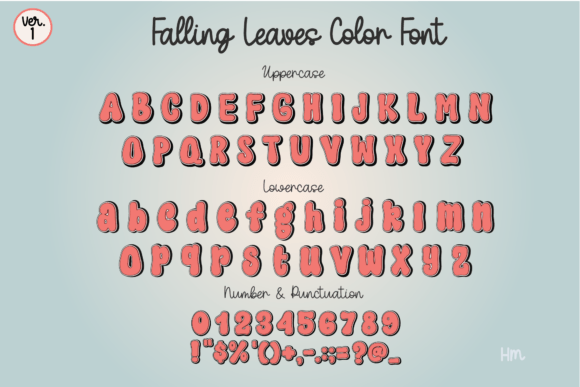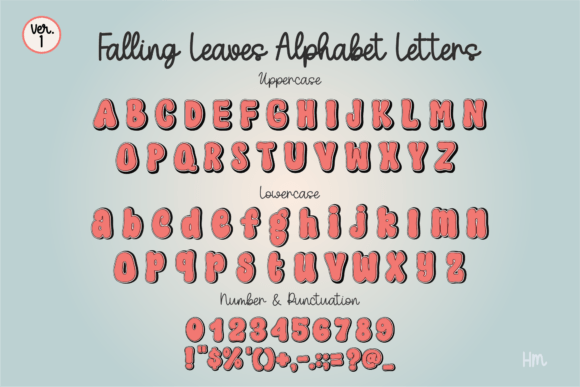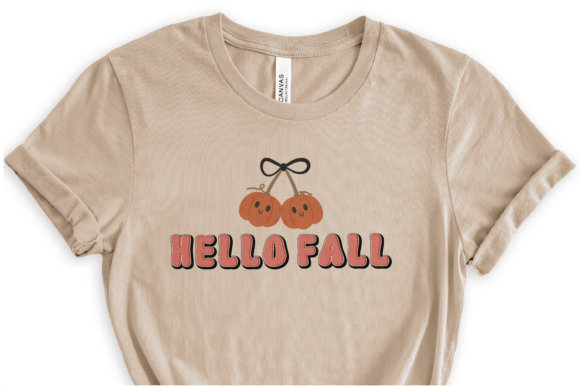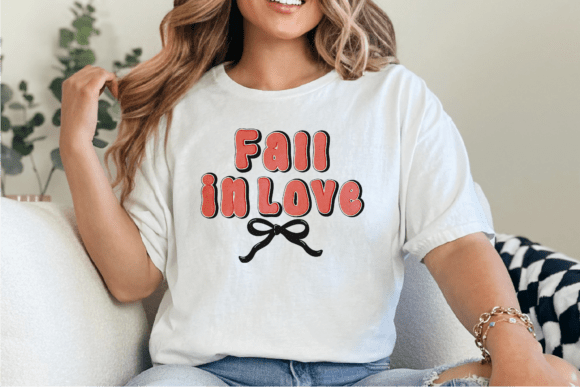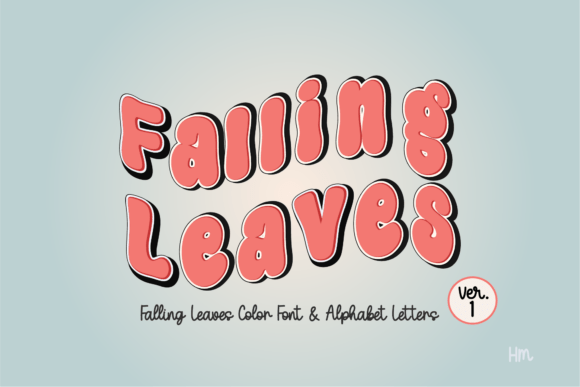
Falling Leaves Orange Font: Elevate Your Designs with a Playful and Expressive Typeface
Are you tired of using the same old fonts in your designs? Look no further than the Falling Leaves Orange Font, a vibrant and playful typeface that’s sure to capture attention. With its bold, rounded letterforms and hand-crafted feel, this font is perfect for designers who want to add a unique charm to their projects.
What Makes Falling Leaves Orange Font So Special?
The Falling Leaves Orange Font is a true standout in the world of typography. Its smooth strokes and organic curves create a lively rhythm that’s sure to engage your audience. The subtle contrasts in weight give each character depth and personality, making every letter a joy to behold. Whether you’re creating posters, social media graphics, titles, invitations, stickers, apparel, or branding, this font is sure to bring a touch of warmth and cheer to your designs.
Key Features of Falling Leaves Orange Font
- Bold and Rounded Letterforms: The Falling Leaves Orange Font features bold, rounded letterforms that are sure to capture attention.
- Hand-Crafted Feel: The font’s hand-crafted feel gives it a unique and personal touch that’s sure to set your designs apart.
- Smooth Strokes and Organic Curves: The font’s smooth strokes and organic curves create a lively rhythm that’s sure to engage your audience.
- Subtle Contrasts in Weight: The subtle contrasts in weight give each character depth and personality, making every letter a joy to behold.
The Falling Leaves Orange Font is incredibly versatile, making it perfect for a wide range of design projects. Here are just a few ideas to get you started:
- Posters: Add a pop of color and personality to your posters with the Falling Leaves Orange Font.
- Social Media Graphics: Make your social media graphics stand out with this fun and playful font.
- Titles and Headings: Use the Falling Leaves Orange Font to add a touch of warmth and cheer to your titles and headings.
- Invitations: Create unique and eye-catching invitations with this beautiful font.
- Stickers and Labels: Add a personal touch to your stickers and labels with the Falling Leaves Orange Font.
- Apparel: Use this font to create custom apparel that’s sure to turn heads.
- Branding: Establish your brand’s personality with the Falling Leaves Orange Font.
Why Choose Falling Leaves Orange Font?
There are many fonts to choose from, but the Falling Leaves Orange Font stands out from the crowd. Here are just a few reasons why:
- Unique and Playful: This font is sure to add a touch of personality to your designs.
- Versatile: The Falling Leaves Orange Font is perfect for a wide range of design projects.
- High-Quality: This font is designed to deliver high-quality results, every time.
- Easy to Read: The font’s smooth strokes and organic curves make it easy to read, even at small sizes.
If you’re looking for a font that will add a touch of warmth and cheer to your designs, look no further than the Falling Leaves Orange Font. With its bold, rounded letterforms and hand-crafted feel, this font is sure to capture attention and engage your audience. Whether you’re a designer, crafter, or DIY enthusiast, this font is perfect for anyone who wants to add a unique charm to their projects. So why wait? Download the Falling Leaves Orange Font today and start creating designs that shine with character and style!
Here are a few additional tips and resources to help you get the most out of the Falling Leaves Orange Font:
- Experiment with Different Colors: Try pairing the Falling Leaves Orange Font with different colors to create unique and eye-catching designs.
- Use it in Combination with Other Fonts: Experiment with using the Falling Leaves Orange Font in combination with other fonts to create interesting and dynamic designs.
- Take Advantage of its Versatility: Don’t be afraid to use the Falling Leaves Orange Font in a variety of design projects, from posters and social media graphics to titles and invitations.